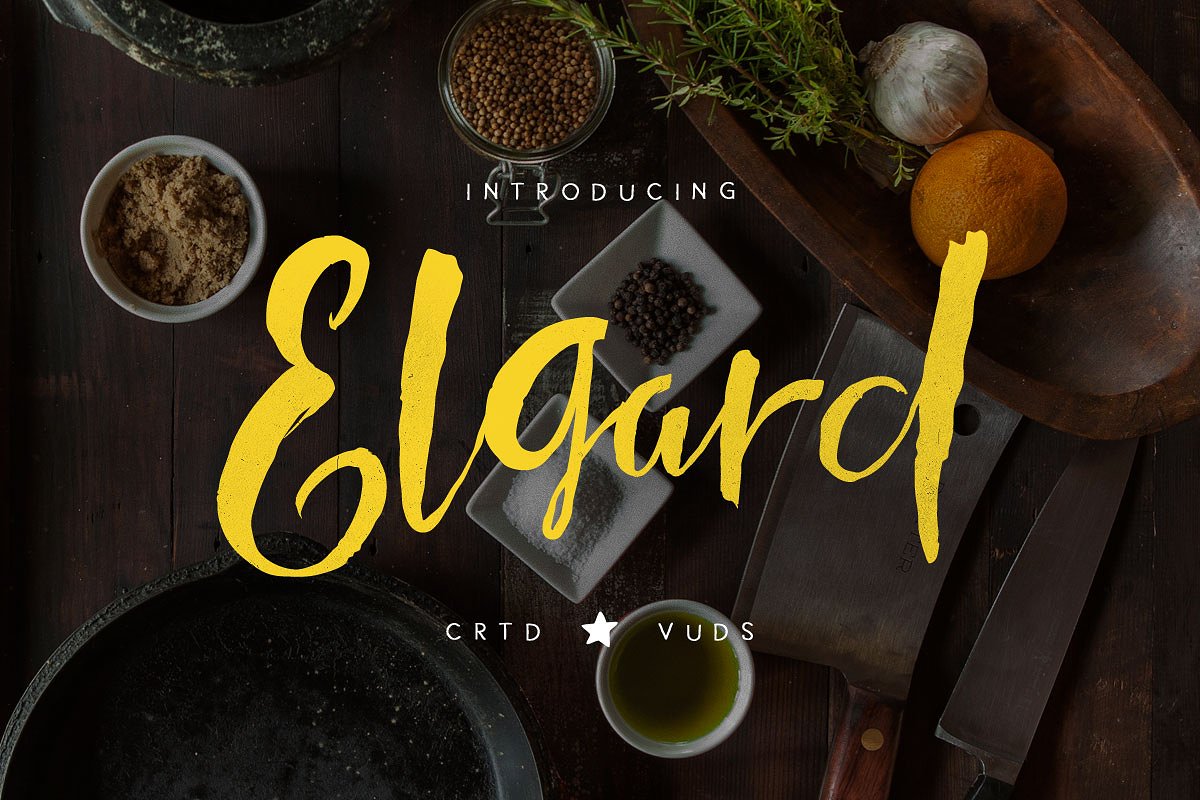
Elgard Brush
Elgard is brush script font, every single letters have been carefully crafted to make your project with this font looks beautiful. With brush script style this font will perfect for many different project ex: quotes, blog header, poster, wedding, branding, logo, fashion, apparel, letter, invitation, stationery, etc.